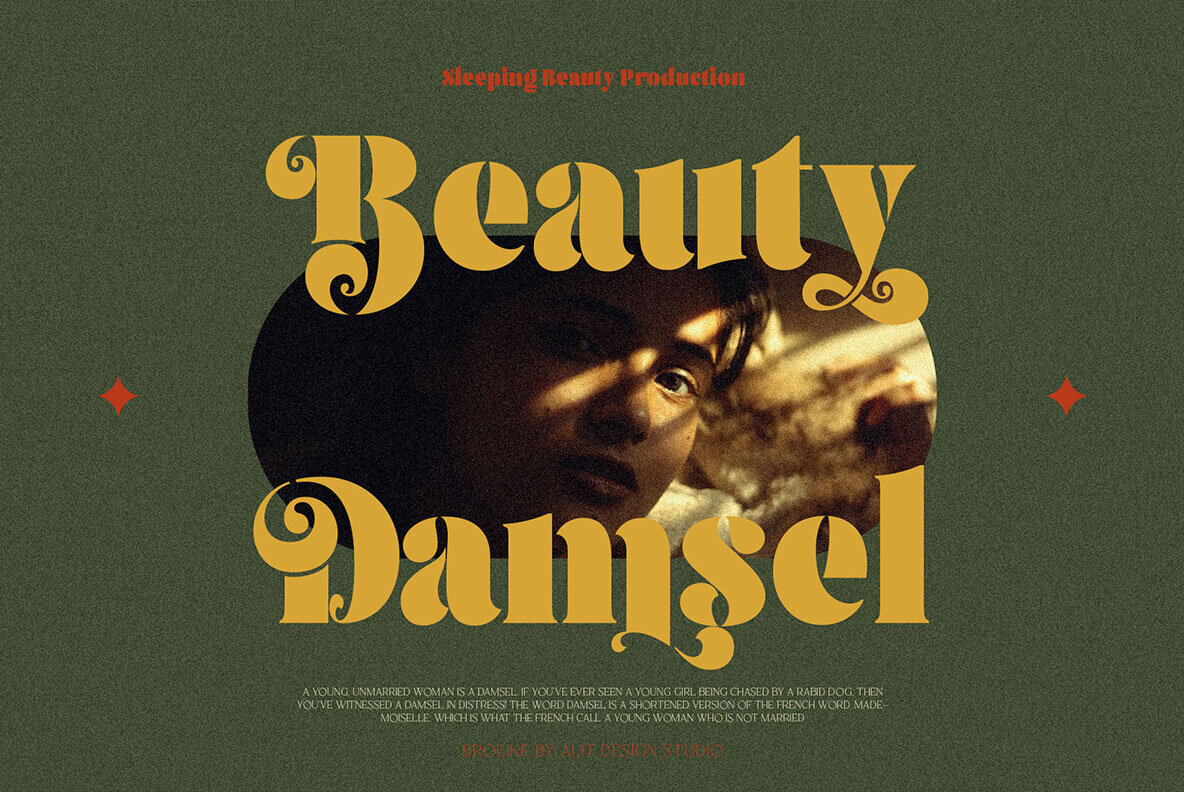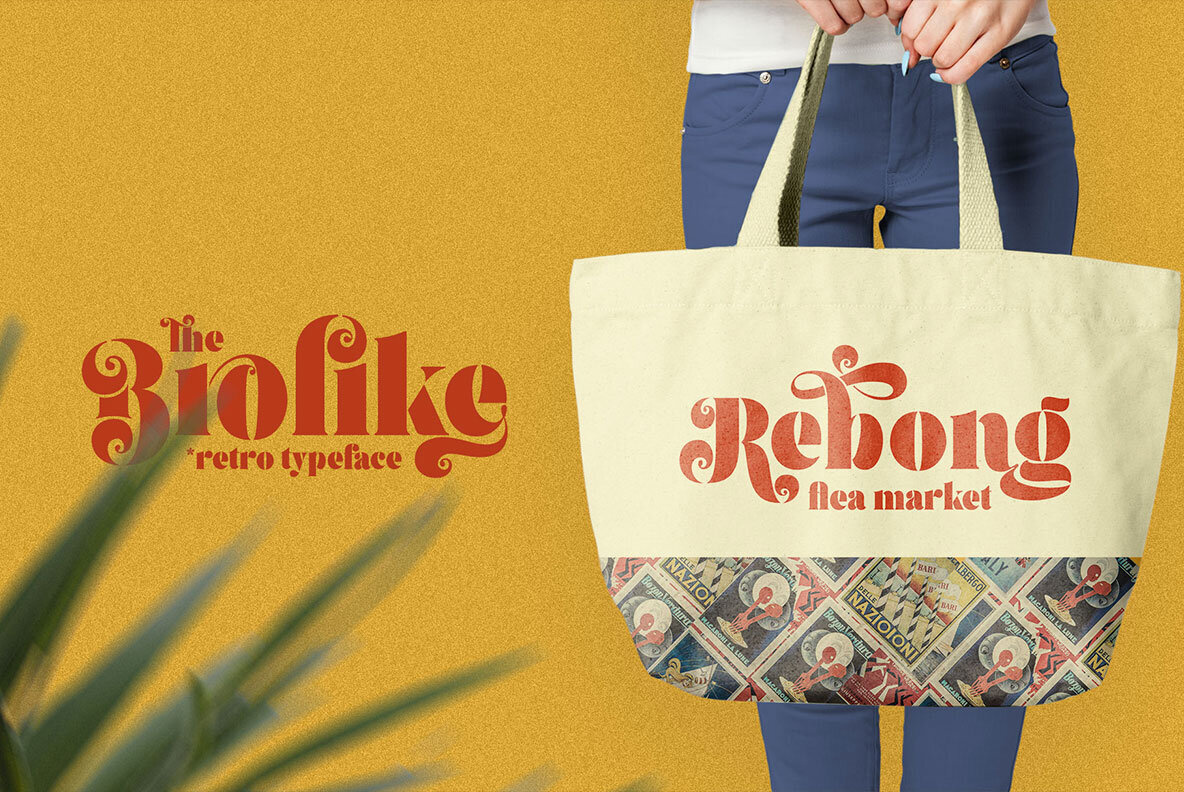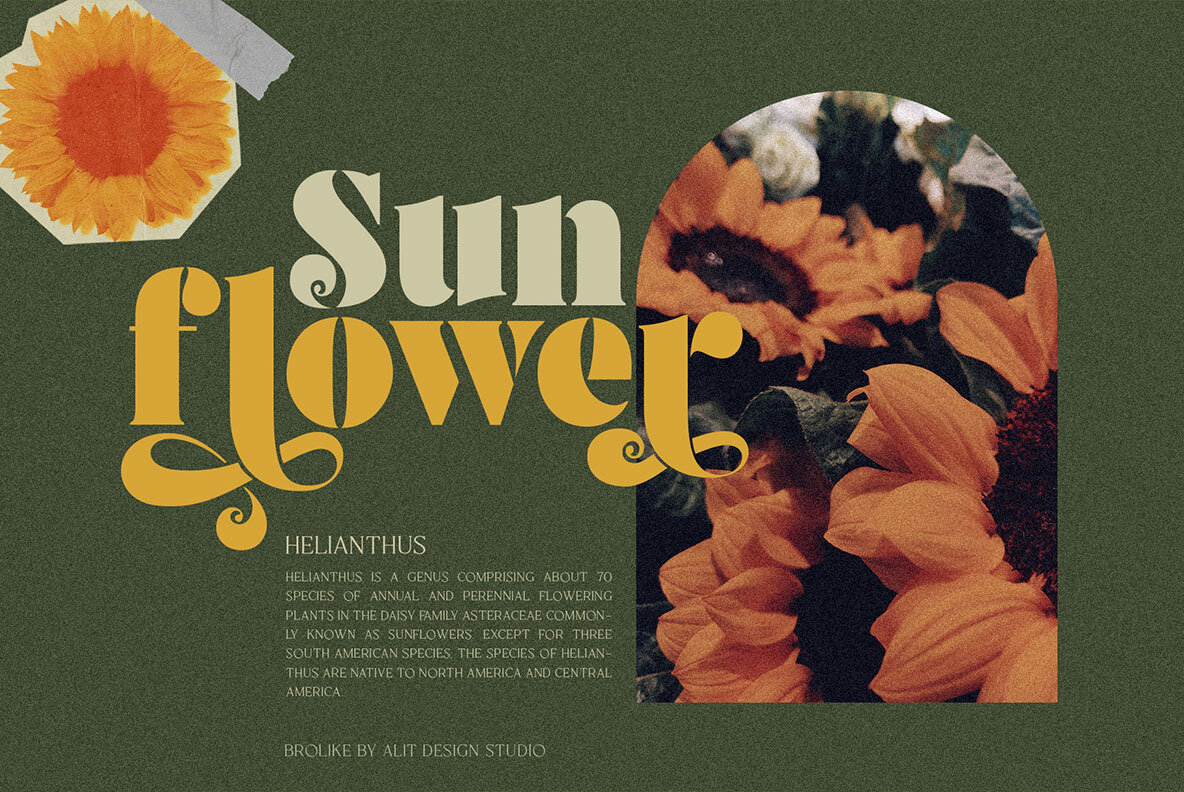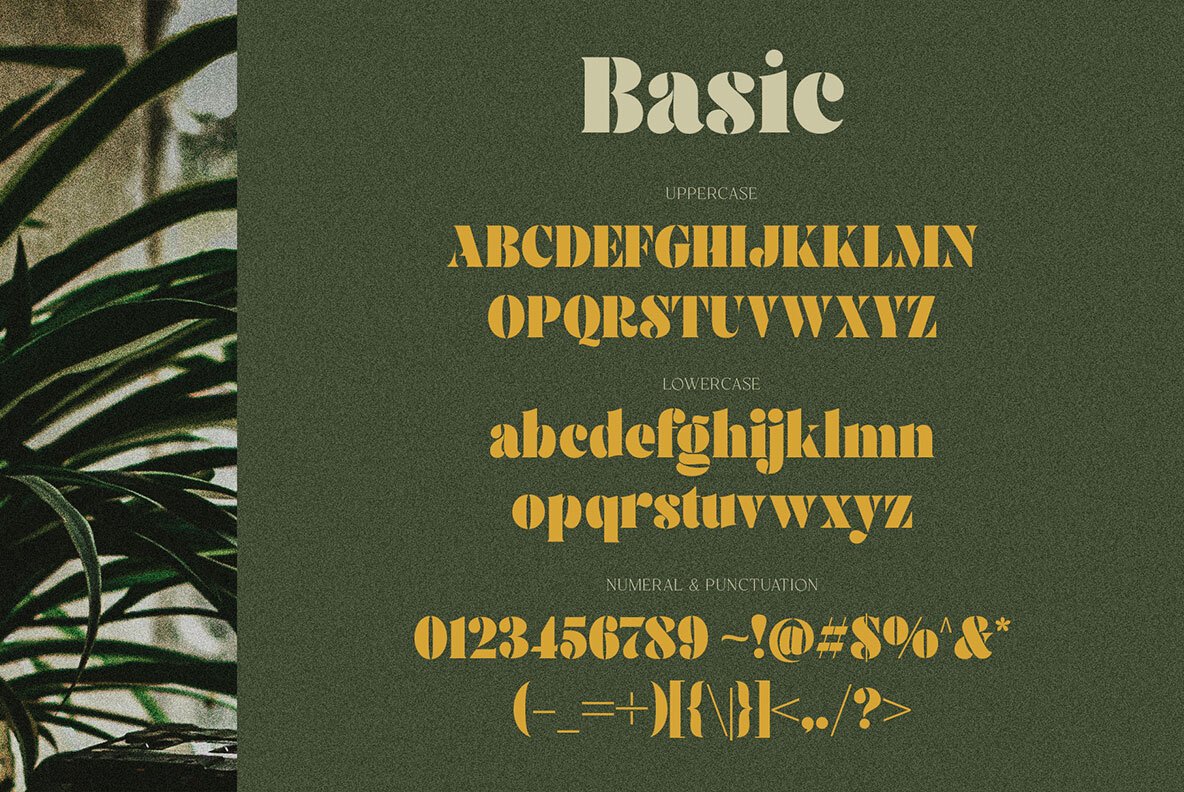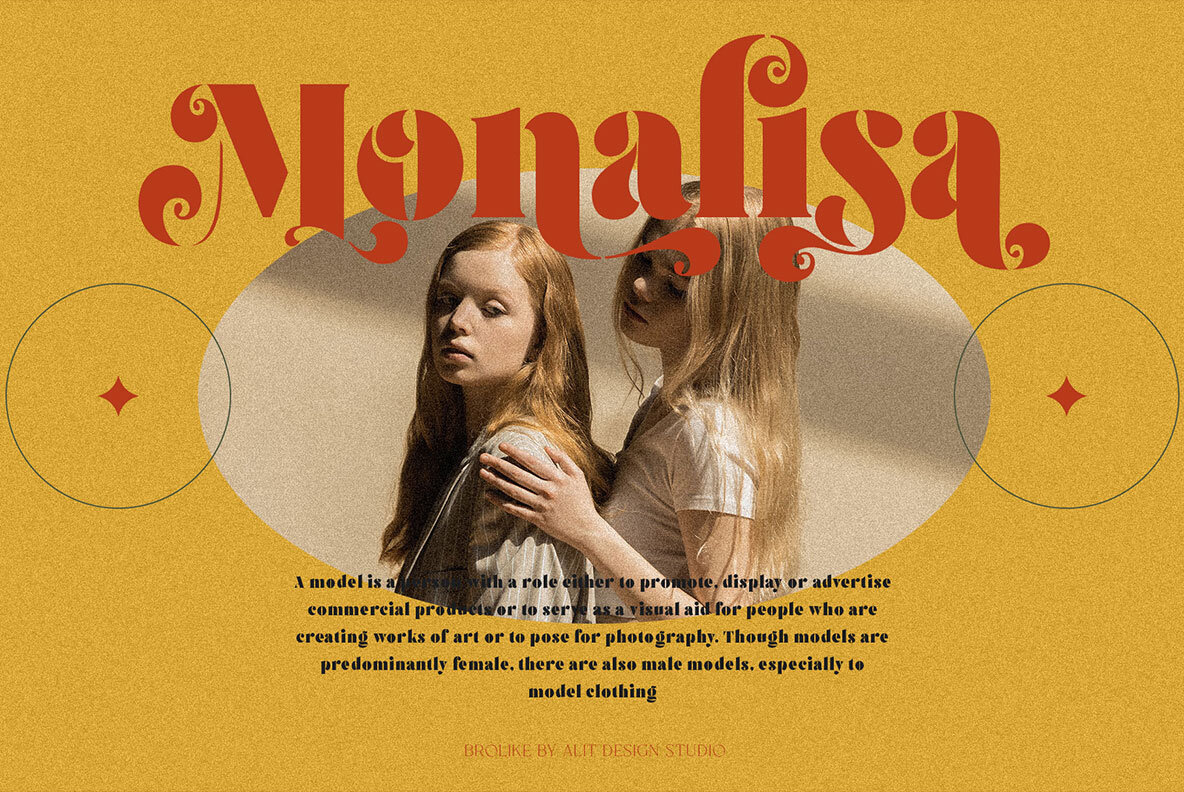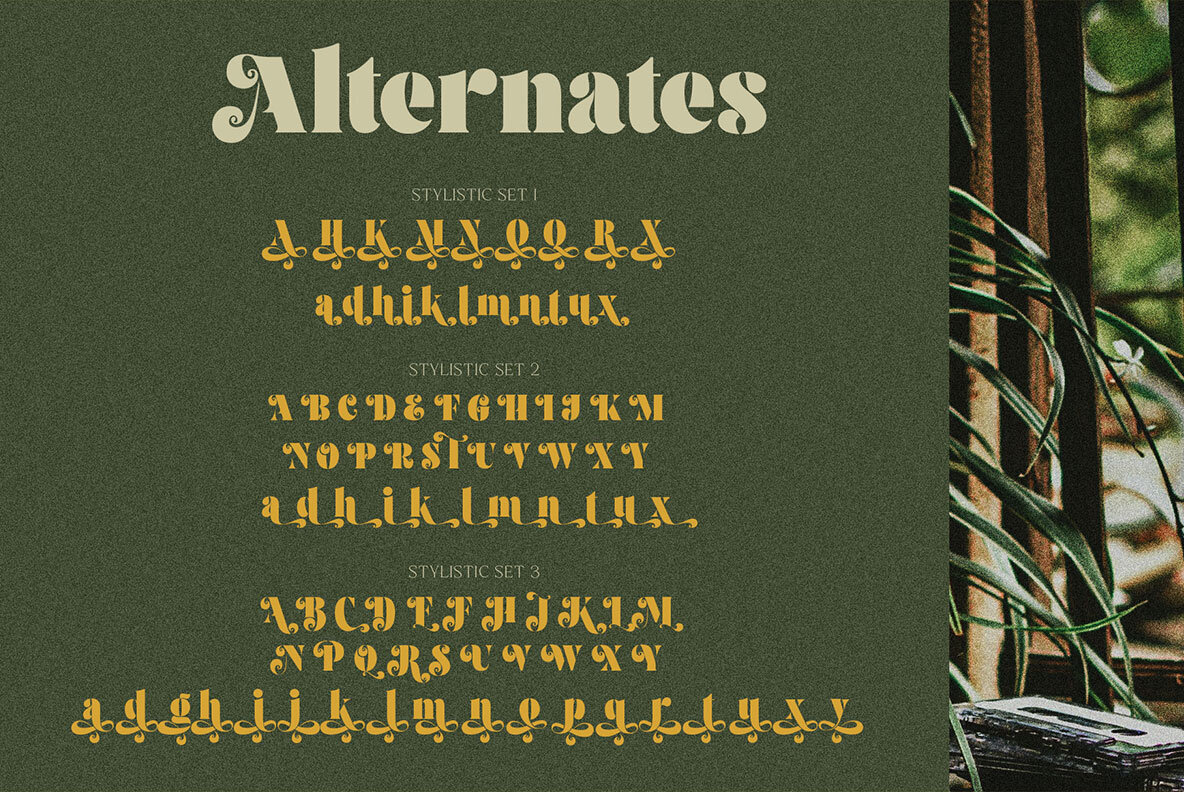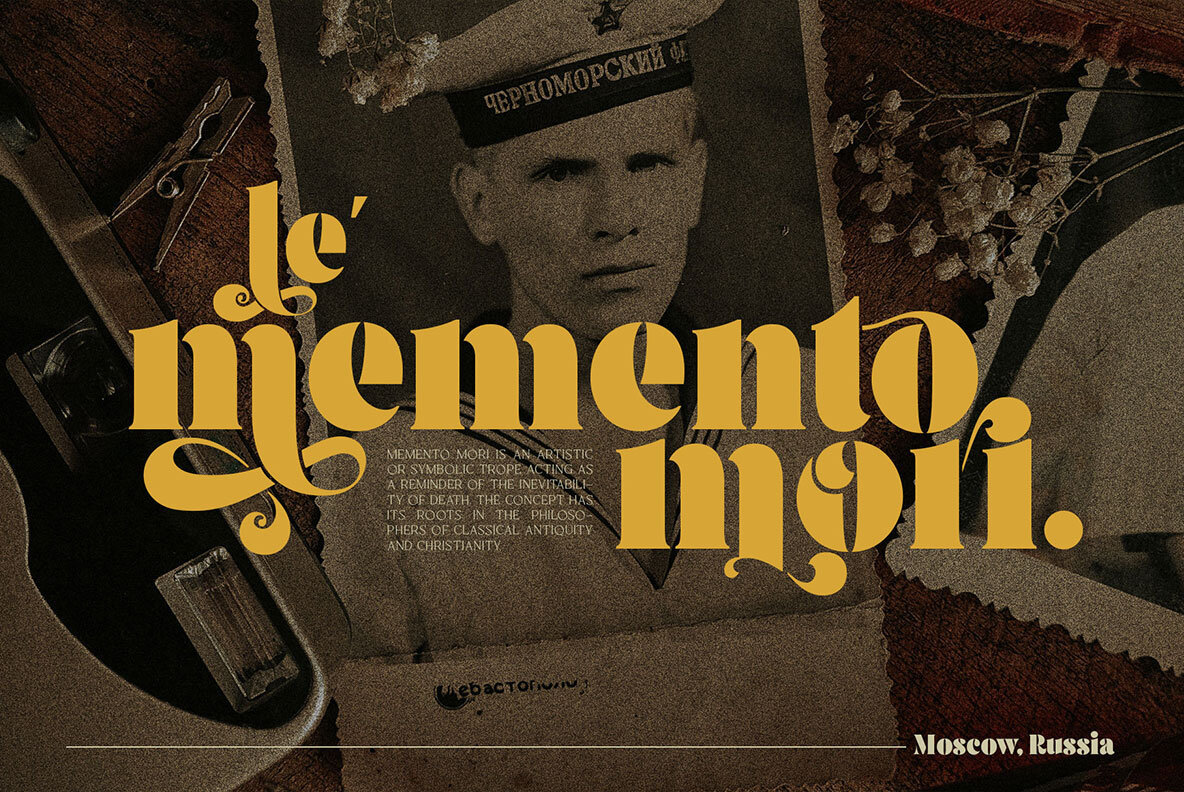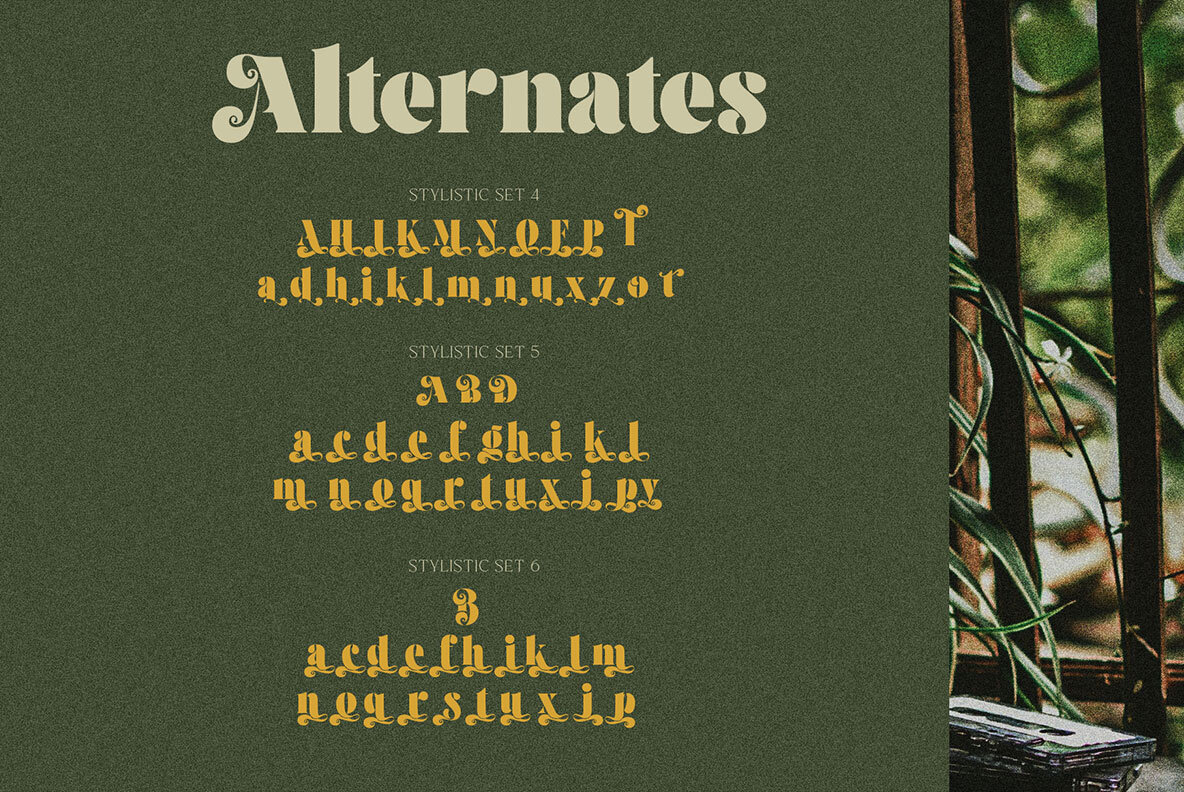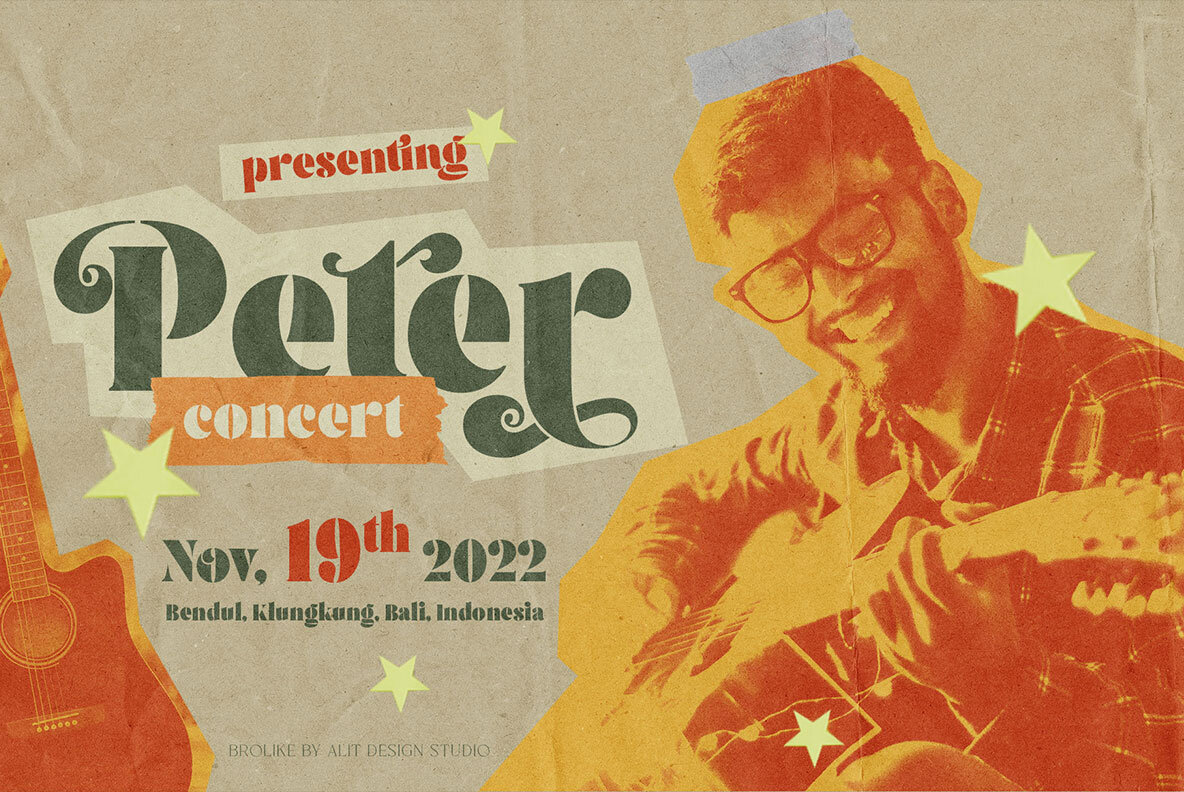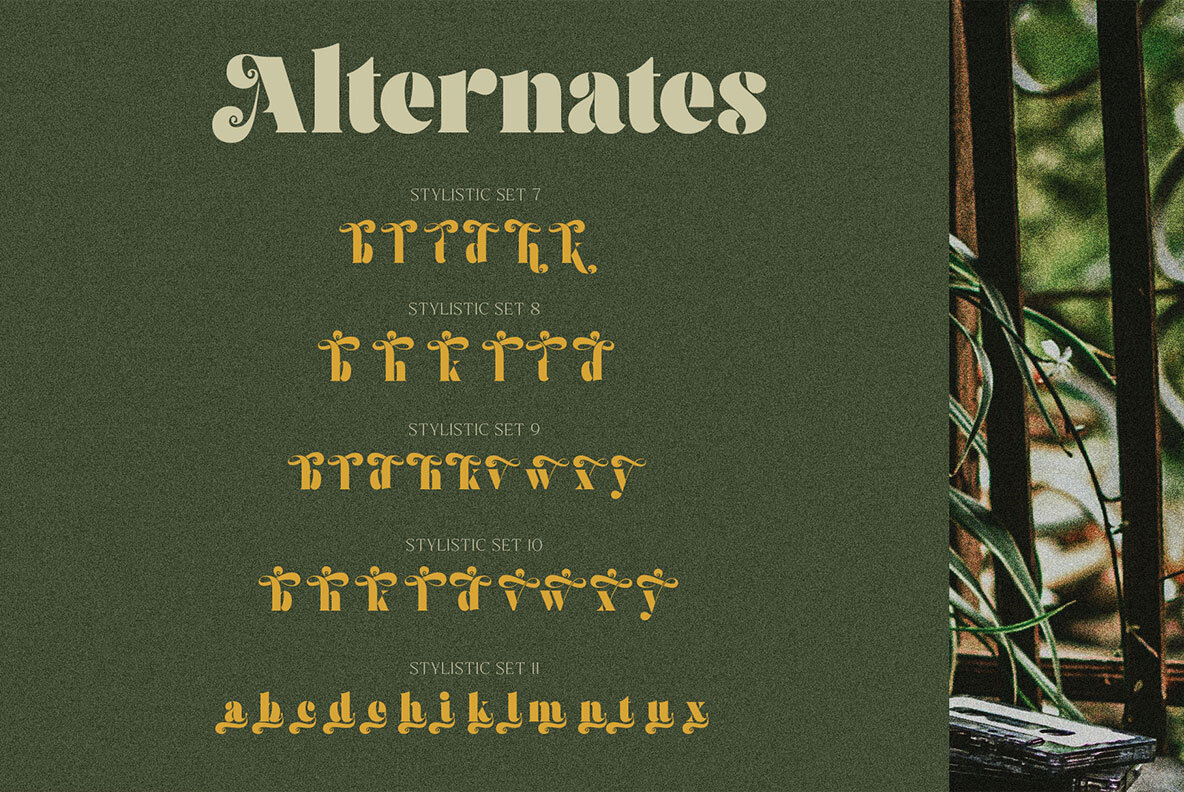
Brolike Font
Brolike Regular
Brolike Typeface Inspired by cassette music album covers in the 70s and 80s, a retro font was created in a calm and simple style but still gives an interesting and unique impression. Besides that, combined with a dynamic stencil style, the Brolike font becomes more stylish, especially if the design to be made uses swash on alternative fonts to create, for example, lettering or a logotype that is designed to make your design cool and different.
Brolike font is very suitable for making designs with retro concepts, simple and playful designs, for example making magazine cover designs, music covers, YouTube thumbs, text headers, logotypes and so on with an elegant retort theme. Besides that this font is very easy to use both in design and non-design programs because everything changes and glyphs are supported by Unicode (PUA).
Brolike font has a total of 746 glyphs including symbol, multilingual and alternative glyphs.
Language Support : Latin, Basic, Western European, Central European, South European,Vietnamese.